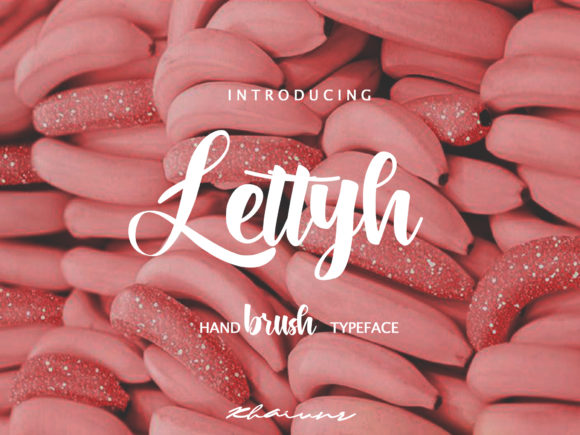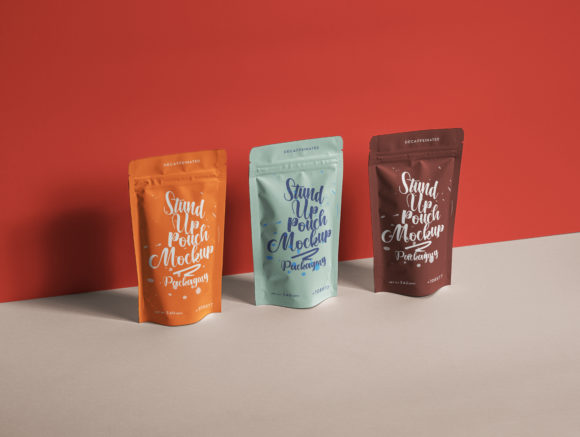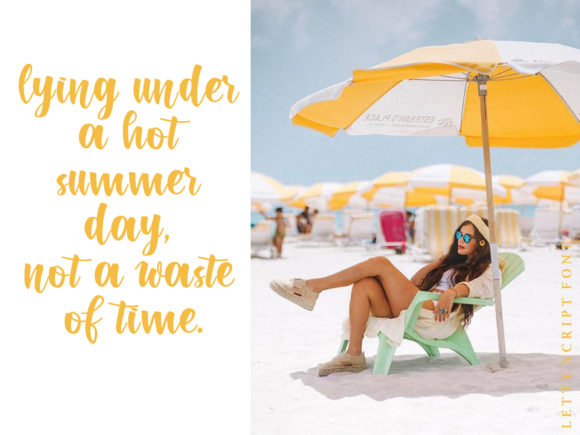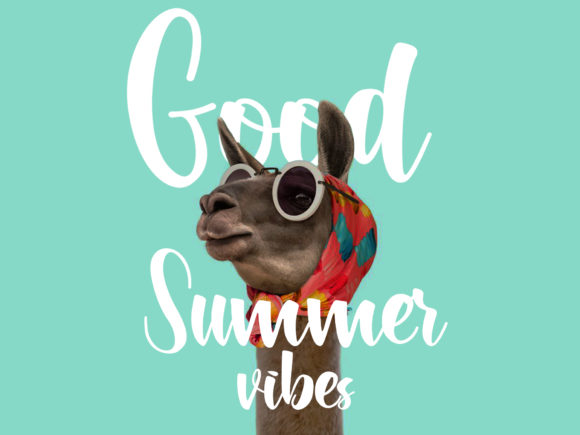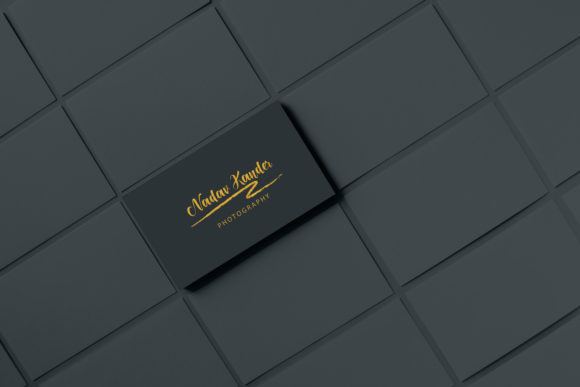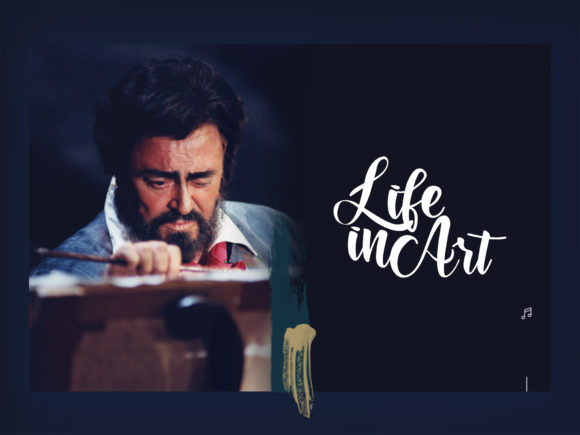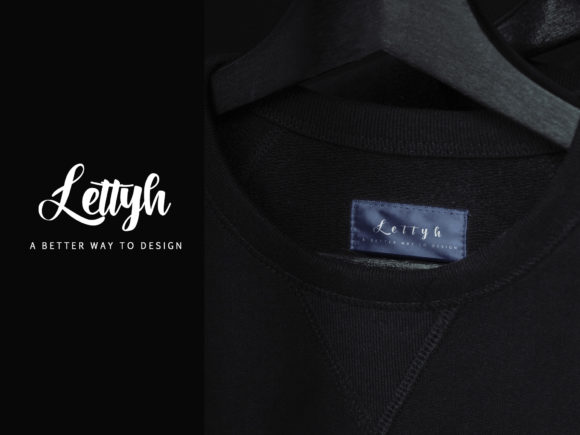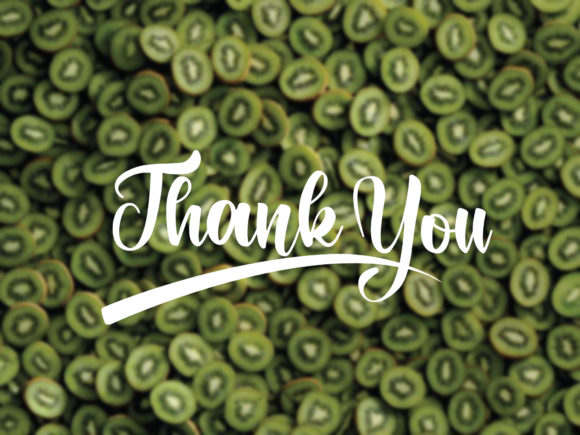
HomeScript FontsLettyh Font Script Fonts Lettyh Font FacebookXPinterestWhatsApp Lettyh Font Poster 2 Lettyh Font Poster 3 Lettyh Font Poster 4 Lettyh Font Poster 5 Lettyh Font Poster 6 Lettyh Font Poster 7 Lettyh Font Poster 8 About Lettyh Font Lettyh is a cool and fun handwritten font with a unique style. Get inspired by its contemporary charm. DOWNLOAD ON CREATIVE FABRICAThis font is sold and delivered by Creative Fabrica. Font Canyon may earn a commission if you buy through this link. People also explored Madeline Font Starwinter Font Cozy Home Font Vibally Calligraphy Font Shavonca Font Wonderland Font Hobbies Font Violeta Font Hay Lelitta Font 292 0 TagsLettyh Font Previous articleTiffanyed FontNext articleArt Maria Font LEAVE A REPLY Cancel reply Comment: Please enter your comment! Name:* Please enter your name here Email:* You have entered an incorrect email address! Please enter your email address here Website: Save my name, email, and website in this browser for the next time I comment. Personal Use Free BD RatterBit Personal Use Free Read more about this font Geuli Font Personal Use Free Read more about this font Welliana Personal Use Free Read more about this font Bitcrusher Condensed Bold Personal Use Free Read more about this font BLOG Where to Buy American Fonts Online in 2024 Where to Buy American Fonts Online: The Ultimate Guide for 2024 Looking for the perfect American font to elevate your design projects? You're in the... How to Cut Any Font on Cricut: Convert a Font to SVG (Free) Elegant Wedding Invitation Fonts – Handwritten & Script Fonts Transform Your Website: Elevate Your Typography with 7 Best Web Font Generators